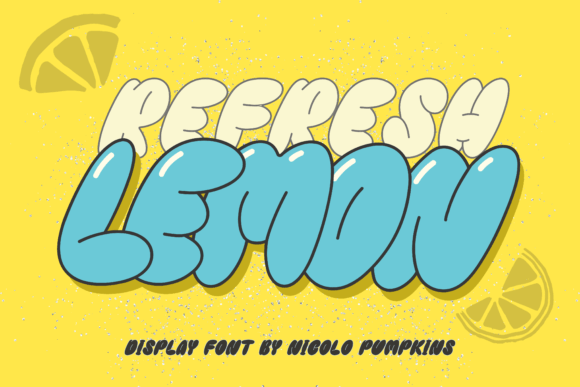
Welcome to the world of Refresh Lemon Font, the ultimate font for teachers looking to make an unforgettable impression. Prepare to be captivated by its whimsical charm and irresistible cuteness.
Refresh Lemon Font is a display font that will instantly transform your resume into a vibrant masterpiece. Capture the attention of hiring managers with its playful and cheerful aura. This font is the embodiment of youth, joy, and creativity, adding a touch of effervescence to any design.
But hold on, teachers! Refresh Lemon Font isn't just for resumes. It's the perfect companion for party invitations, swimming gatherings, and any design that calls for a spark of fun. Embrace the bubbly personality of this font and let your creativity soar.
With its irresistible charm, you'll find yourself reaching for Refresh Lemon Font time and time again. It's the font that will make your designs stand out from the crowd, leaving a lasting impression on everyone who sees it.
So why wait? Dive into the world of Refresh Lemon Font today and experience the joy of creating designs that radiate happiness and vitality. Let this font be your secret weapon for capturing hearts and imaginations.